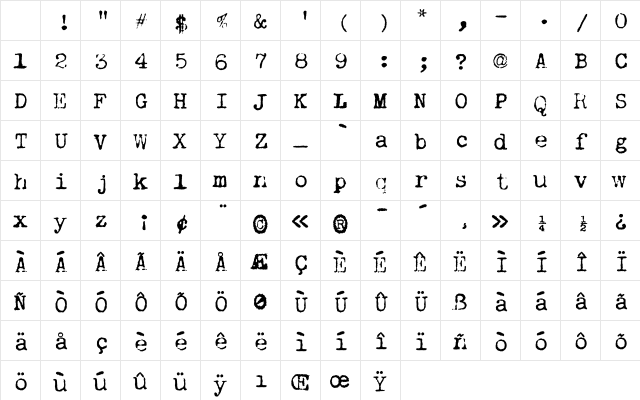
Complete VTypewriter RemingtonPremiere glyph index. Displaying only characters natively supported by VTypewriter RemingtonPremiere font.
VTypewriter uses fixed-width spacing throughout, giving it the structured, systematic character associated with coding environments and technical documentation.